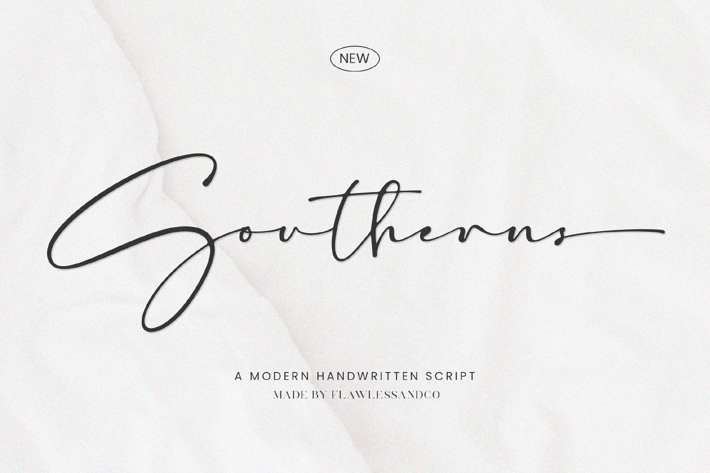
Southerns Script Handwritten Font
Introducing "Southerns" - A Modern Handwritten Script Font, a contemporary handwritten script font that brings a touch of casual elegance to your designs. With its flowing lines and stylish character, "Southerns" is designed to add a sense of personal touch and modern style to your projects. This font is suitable for any graphic design, such as branding materials, wedding invitations, posters, photography, etc.